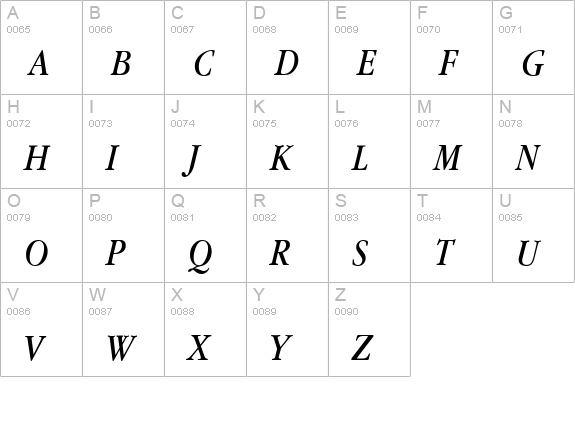
Apple Garamond Book Italic BT is a comfortable, highly readable, italic variant in the Apple typeface family \xE2\x80\x94 well suited to long-form body text, articles, and editorial content.
Apple Garamond Book Italic BT font is a beautifully designed typeface that exudes elegance and sophistication. Its sleek and stylish italicized form adds a touch of flair to any text, making it perfect for both professional and creative projects. The subtle curves and delicate strokes of this font give it a timeless appeal that is sure to elevate your designs. What's even better is that Apple Garamond Book Italic BT font is available for free download at FontsMarket.com. So, whether you're working on a branding project, creating invitations, or designing a website, this font is a versatile choice that will make your text stand out. Don't miss the opportunity to enhance your designs with this exquisite typeface that is both classic and modern.